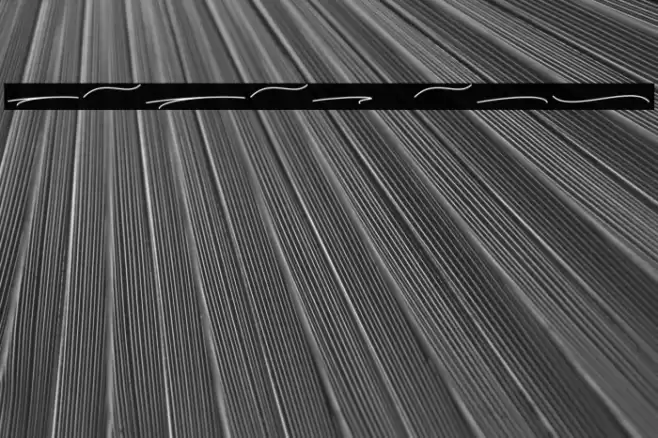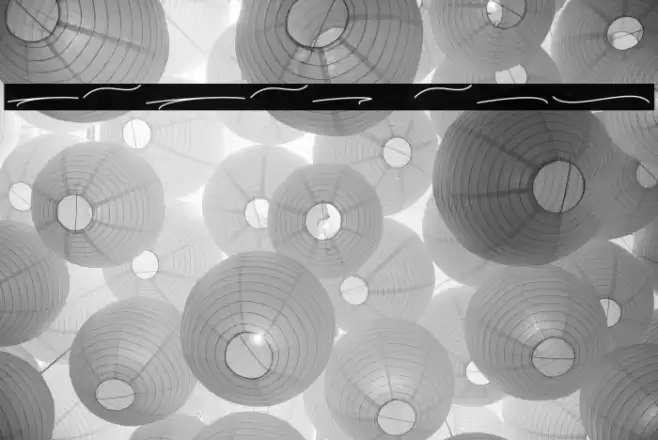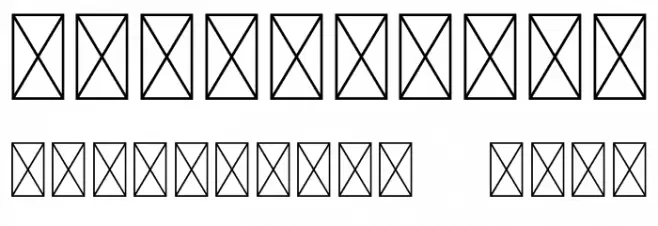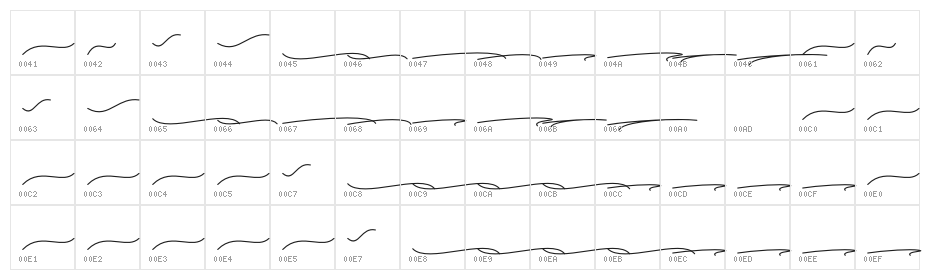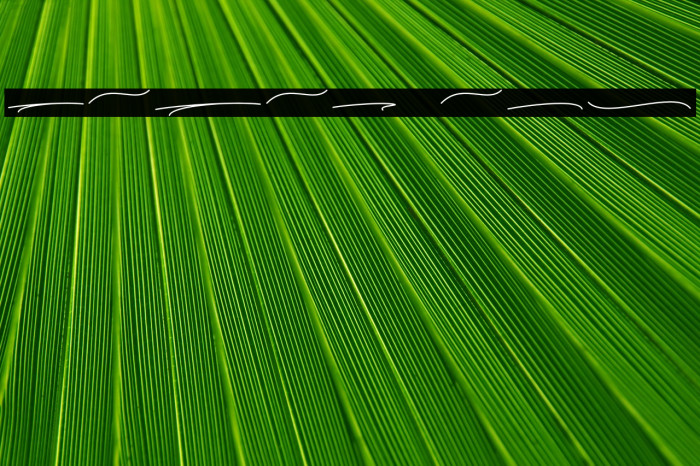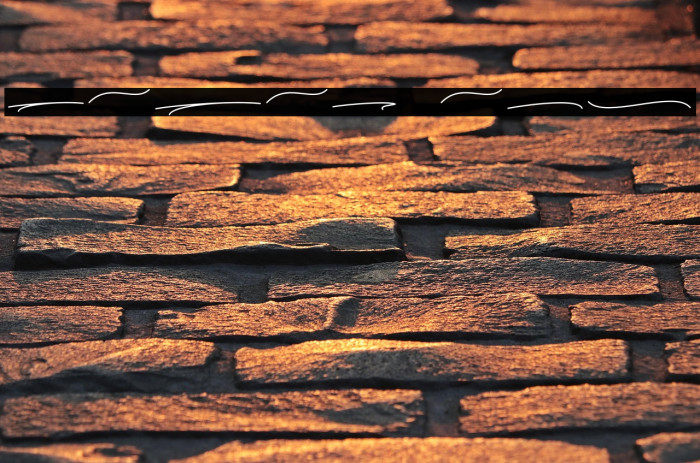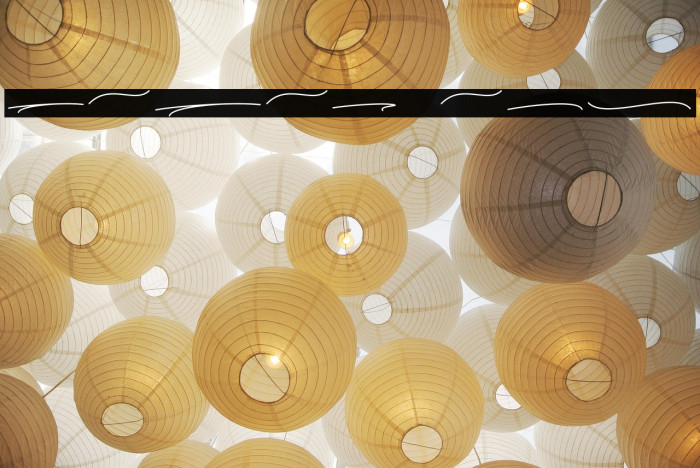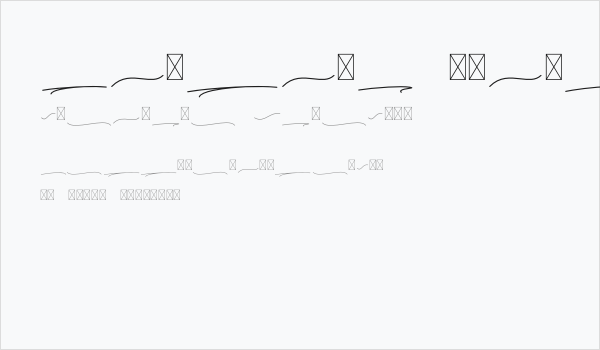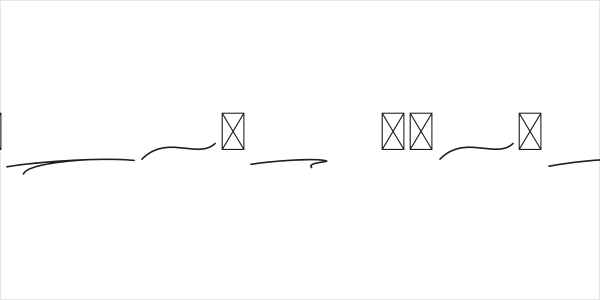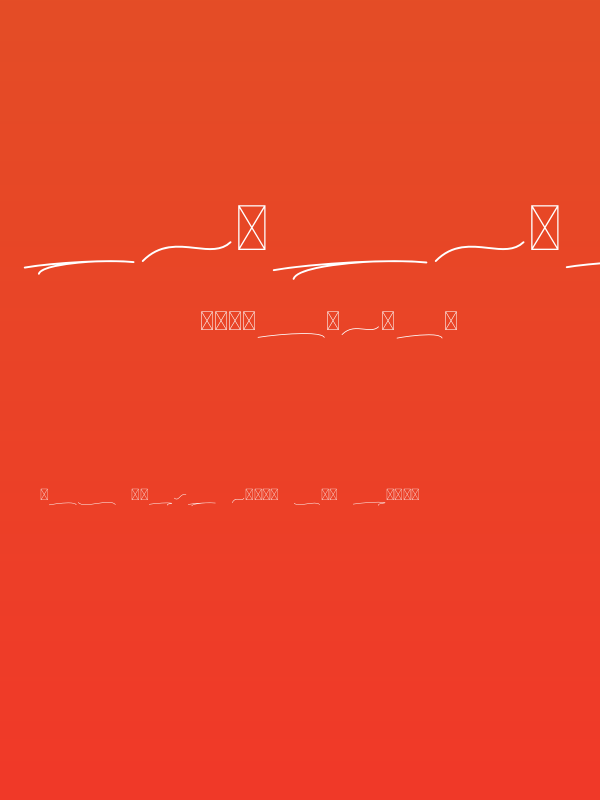
Kaylari Swashes Font
Kaylari Swashes Description
This font features elegant, flowing swashes that add a touch of sophistication and flair to any design. The strokes are smooth and continuous, creating a sense of movement and grace. The characters are designed with artistic embellishments, making them ideal for decorative purposes. The overall appearance is both stylish and refined, suitable for projects that require a touch of elegance.
Elegant swashes with flowing, artistic strokes from Uncategorized fonts.
- Proposed Projects: Ideal for wedding invitations, greeting cards, branding, and decorative headings.
- Use Case: Logos, Headlines, Invitations